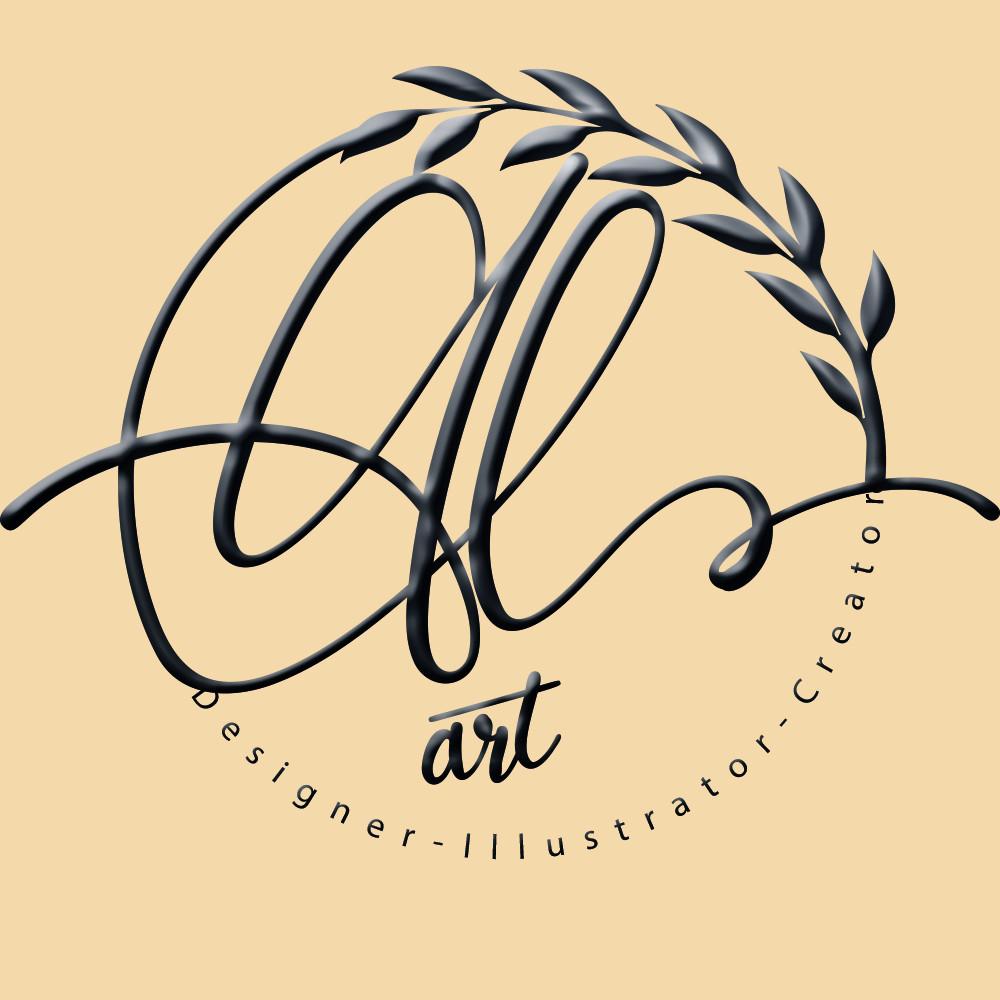
Balleno Font Description
Balleno is a delicate, elegant and flowing handwritten font. It has beautiful and well balanced characters and as a result, it matches a wide pool of designs. Add it to your most creative ideas and notice how it makes them come alive!